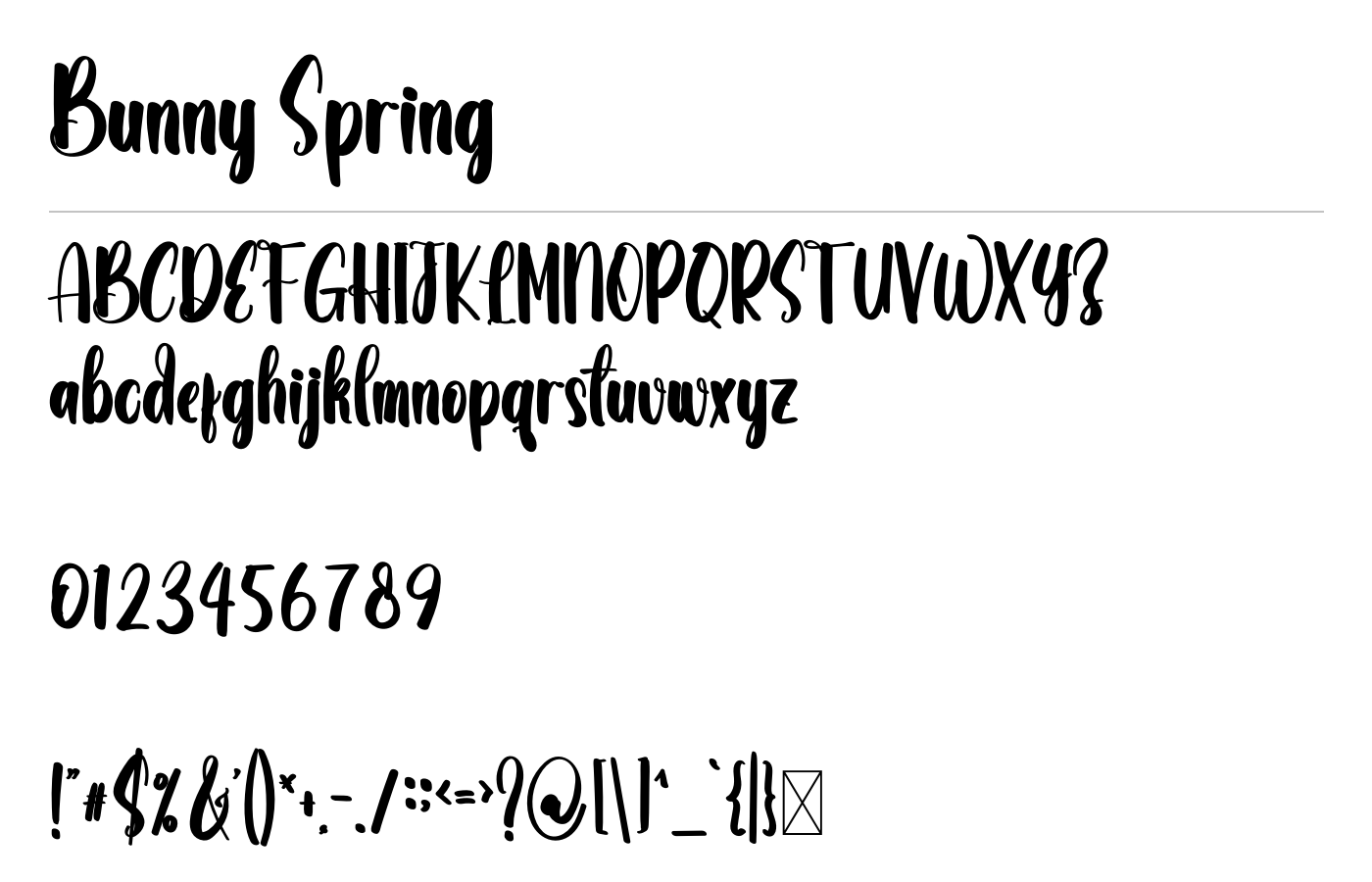
Bunny Spring is a playful and friendly script-style font with a bold, rounded weight and lively, handwritten strokes that bring charm and warmth to any design. Its tall, slightly condensed letterforms with smooth curves and unique quirky character shapes make it perfect for informal branding, invitations, and creative headlines where a cheerful and approachable tone is desired. This font shines in projects that seek a hand-crafted, fun vibe, such as children’s products, casual social media graphics, or festive event materials.
Bunny Spring Font
About Bunny Spring Font